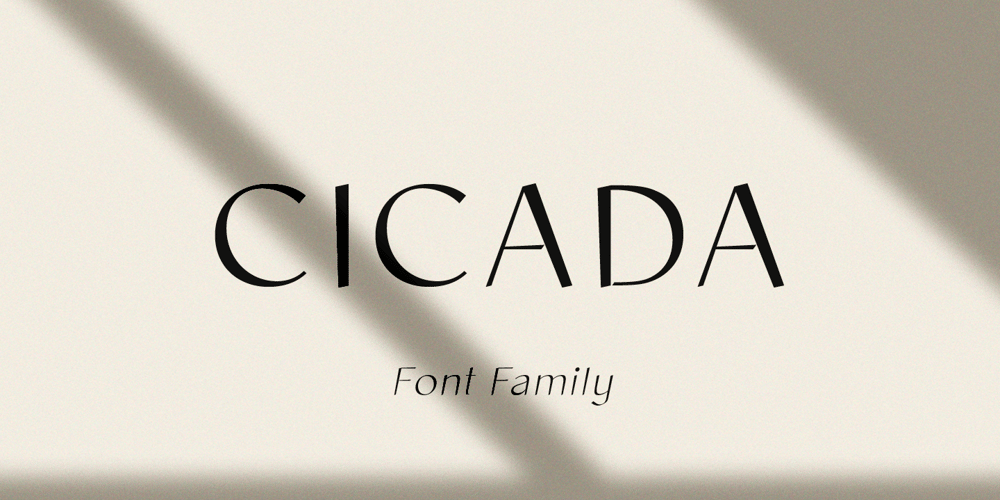
Cicada Font Family was designed by Pavel Larin and published by Larin Type Co. Cicada contains 10 styles and family package options. Cicada is an elegant and modern sans-serif font family. It includes upright and Italic style, each of them has five weights from Extra light to bold. This is a multi-purpose font that is perfect for any project, it is contrasted, modern and easy to read. With it, you can create logos, use in advertising, packaging, book covers and magazines, headings, descriptions and much more. Also use Italic style to add dynamics to your project. This font is easy to use has OpenType features.